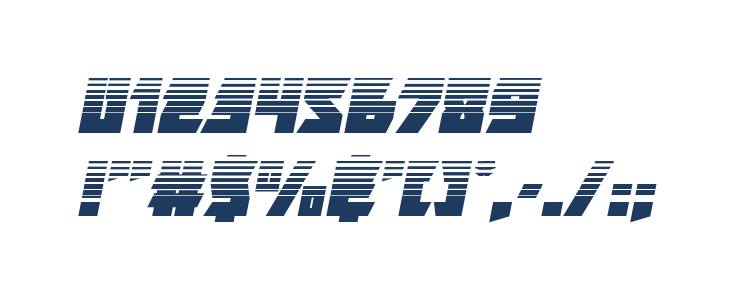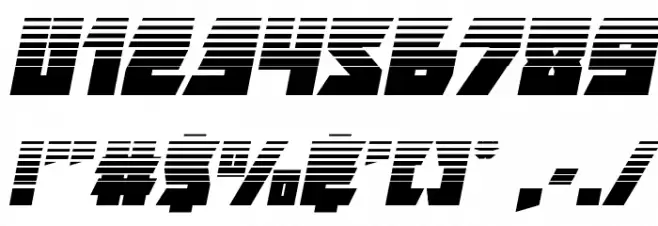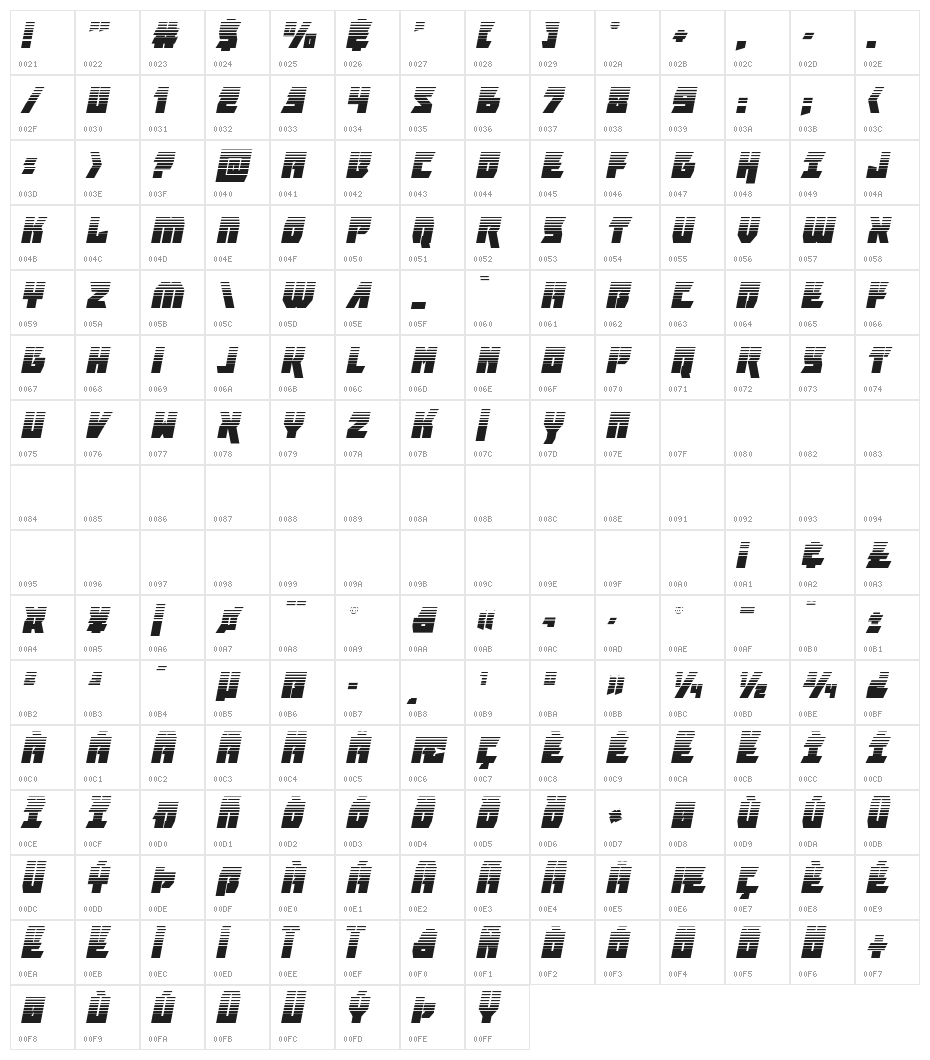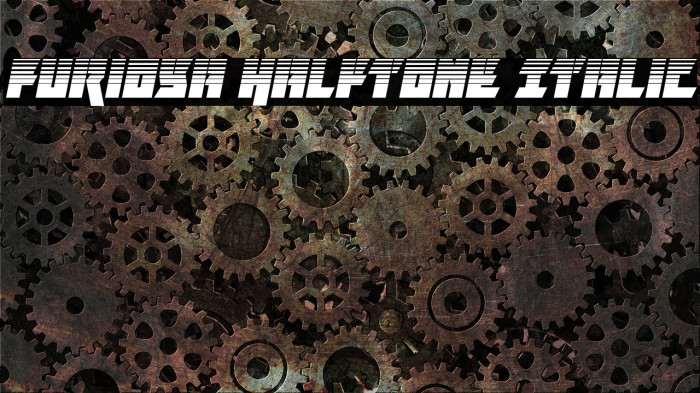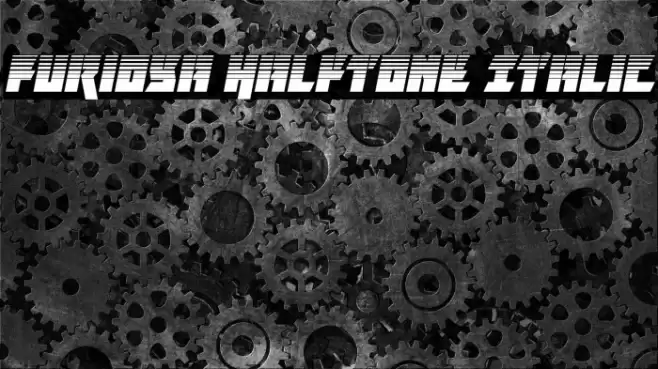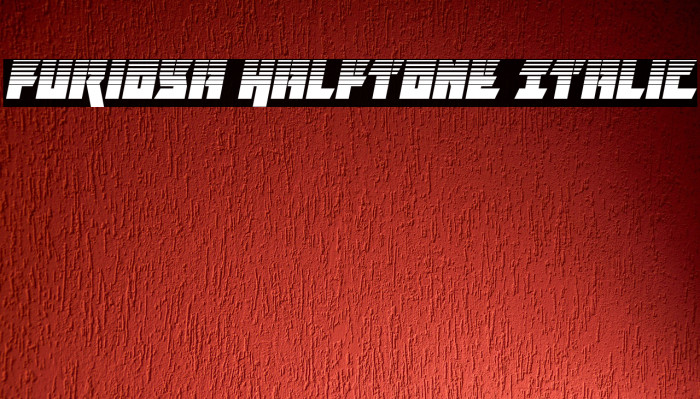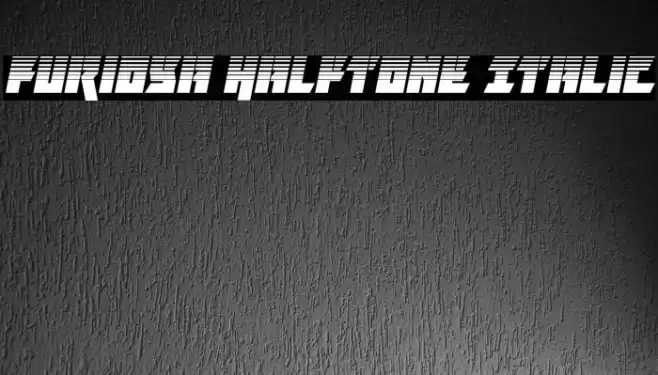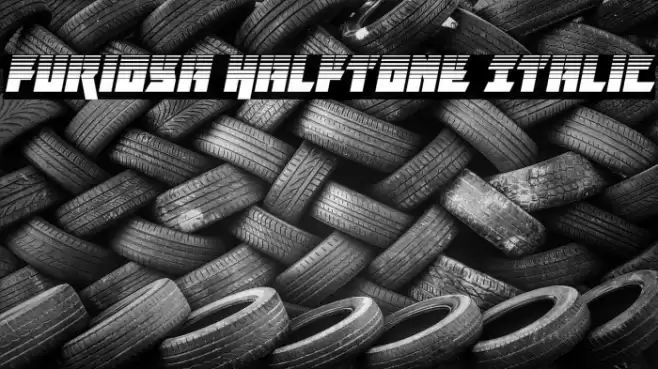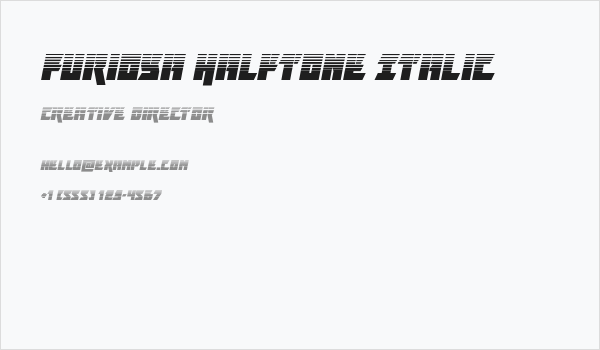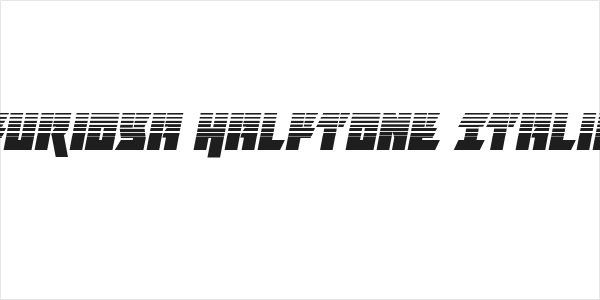
Furiosa Halftone Italic Font
Furiosa Halftone Italic Description
This font features a bold, futuristic design with a halftone effect that gives it a dynamic and edgy appearance. The characters are italicized, adding a sense of motion and speed. The uppercase and lowercase letters maintain a consistent style, with sharp angles and a blocky structure. The numbers and special characters are designed to match the boldness and unique style of the alphabet. The halftone pattern creates an interesting visual texture, making it suitable for eye-catching designs.
| Overall Style | Futuristic, Dynamic |
| Proposed Projects | Ideal for sci-fi themed posters, video game titles, and modern branding projects. |